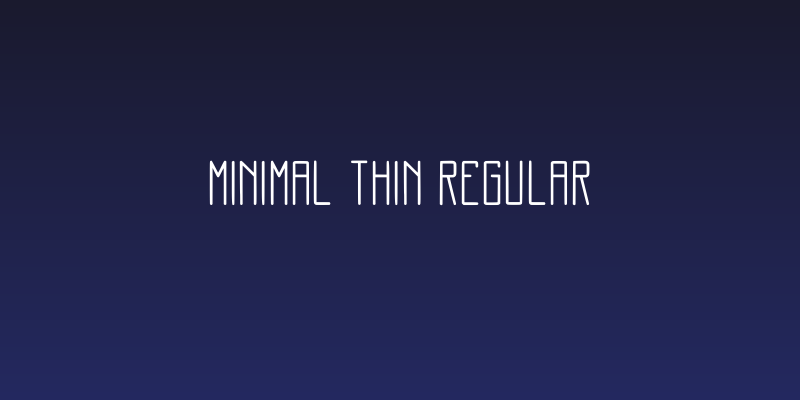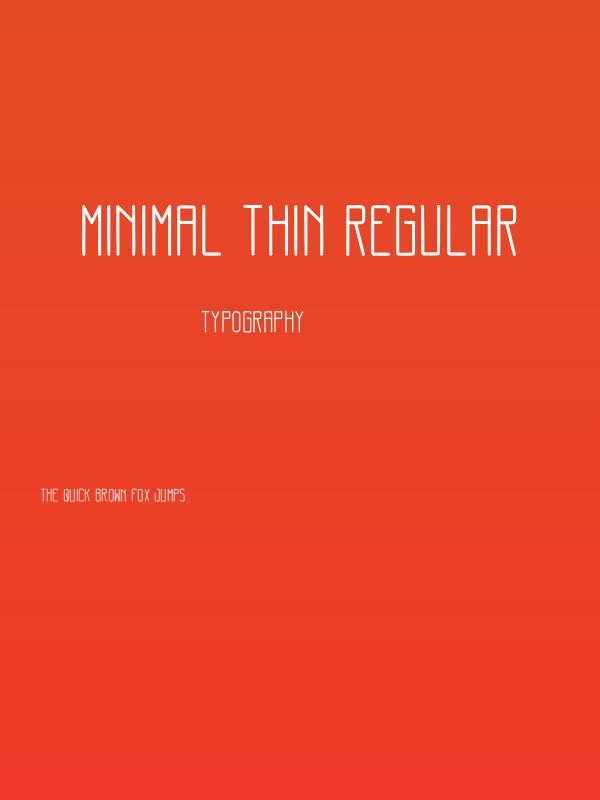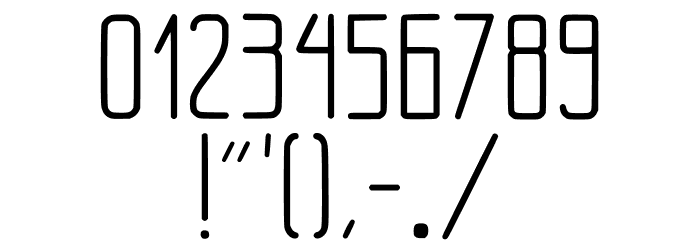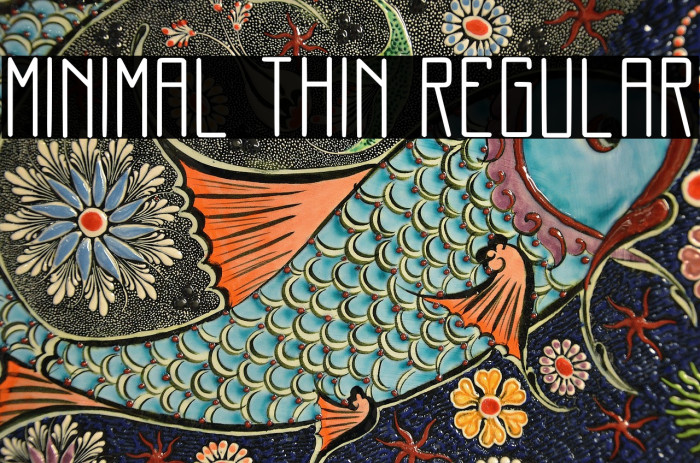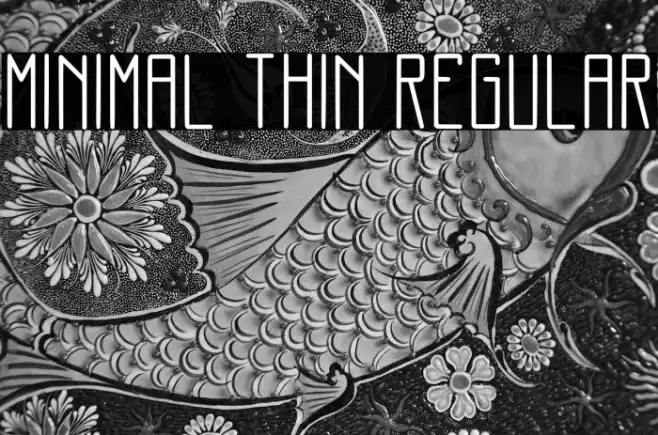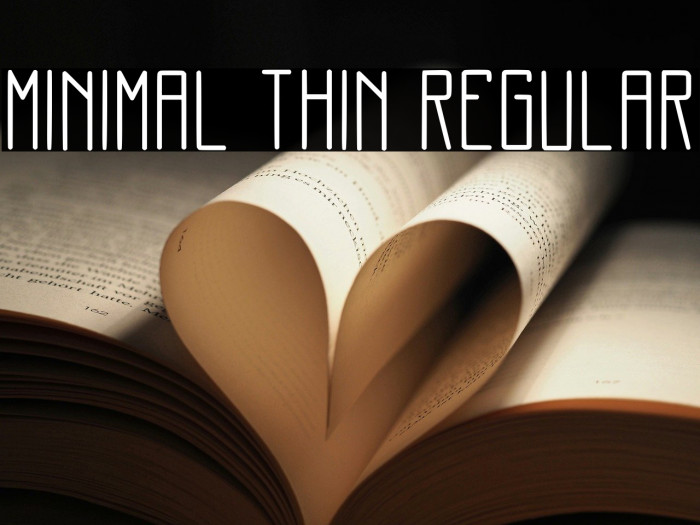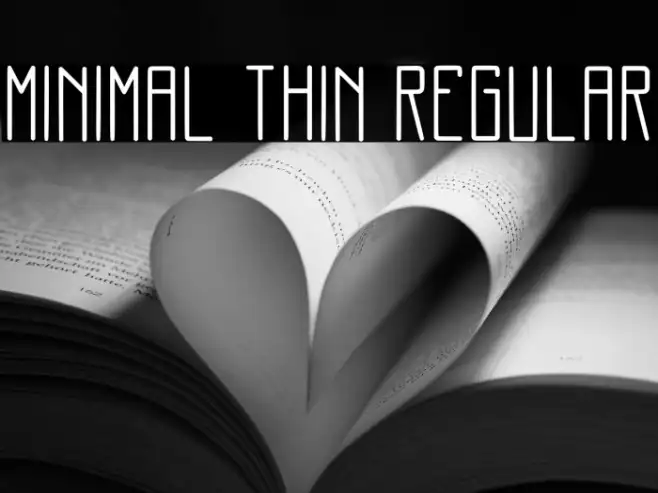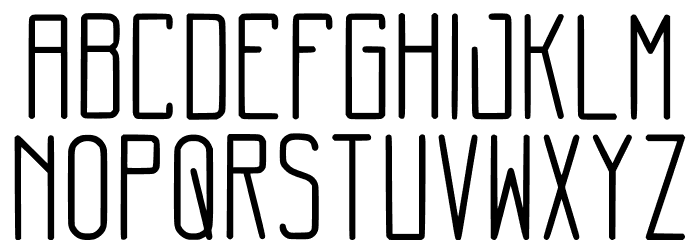
Minimal Thin Regular Font
Minimal Thin Regular Description
This font features a sleek and minimalistic design with thin, elongated letterforms. The characters are uniform in height and width, creating a harmonious and balanced appearance. The strokes are consistent in thickness, contributing to a clean and modern aesthetic. The uppercase and lowercase letters maintain a cohesive style, with rounded edges that soften the overall look. The numerals and special characters are designed to match the simplicity and elegance of the alphabet, making this font versatile for various applications.
| Proposed Projects | Ideal for modern branding, minimalist posters, sleek website headers, and contemporary product packaging. |